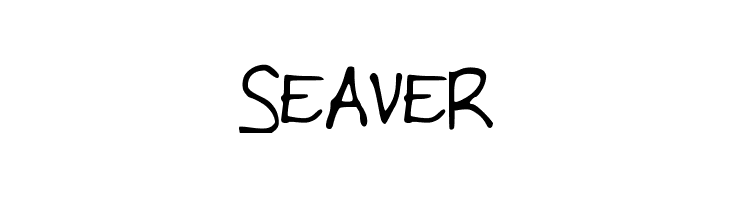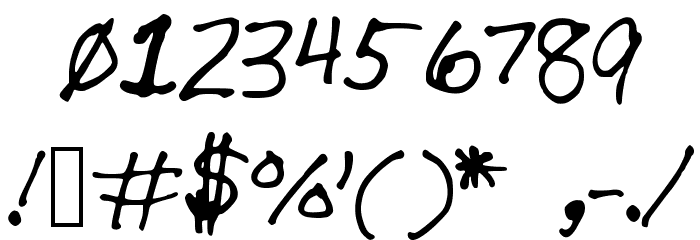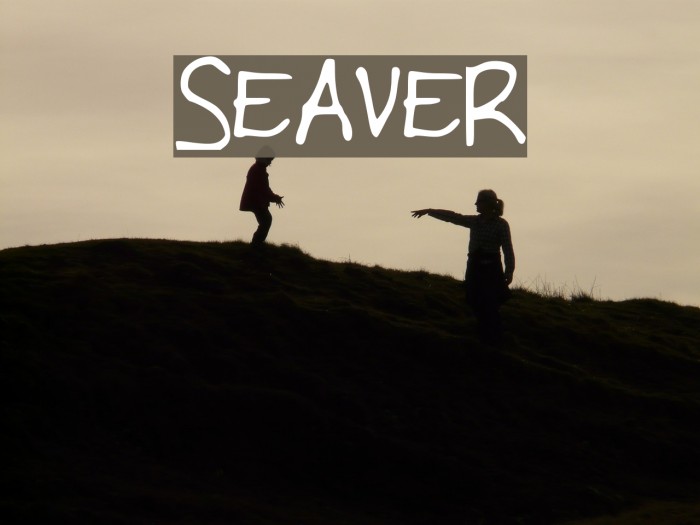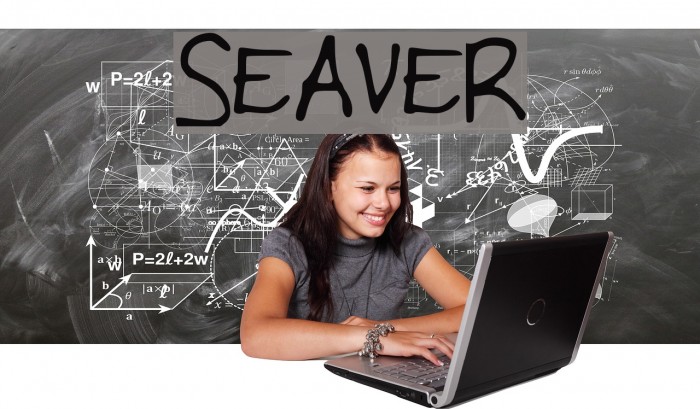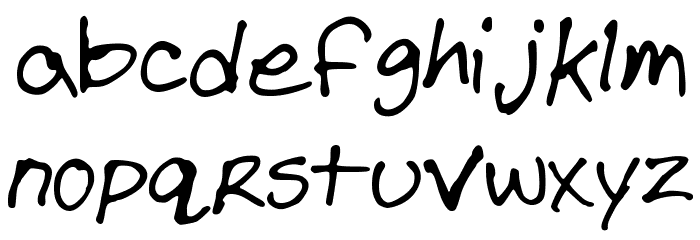
SEAVER Font
SEAVER Description
This font exhibits a playful and casual handwritten style, characterized by its irregular and organic letterforms. The strokes are uneven, giving it a dynamic and lively appearance. The uppercase and lowercase letters maintain a consistent flow, while the numerals and special characters complement the overall aesthetic. The font's informal nature makes it suitable for projects that require a personal touch or a relaxed vibe. Its unique style can add a sense of authenticity and warmth to any design.
A playful, casual handwritten font with irregular, organic strokes from Uncategorized fonts.
- Proposed Projects: Ideal for greeting cards, personal branding, children's books, and informal invitations.
- Overall Style: Casual, Playful
- Use Case: Headlines, Informal text, Personal projects